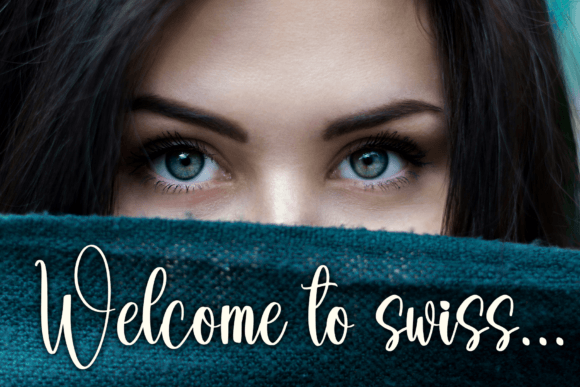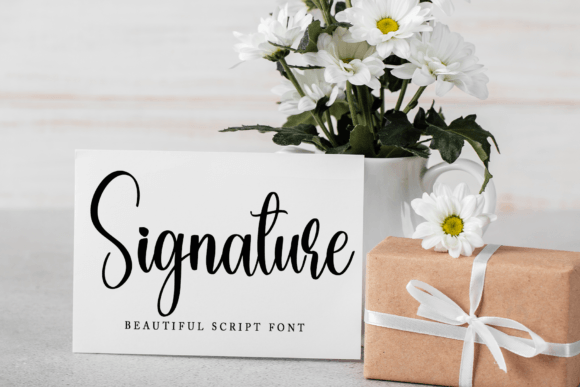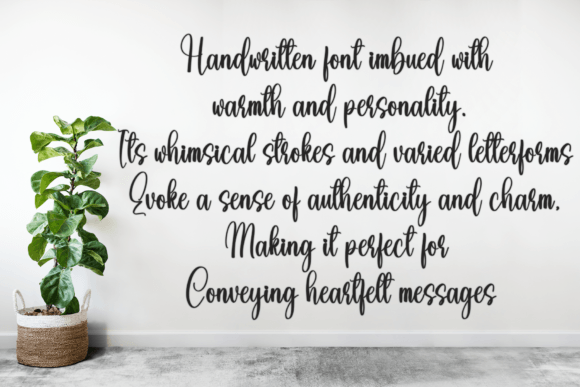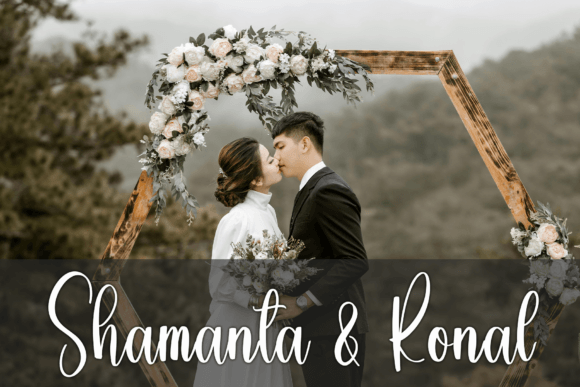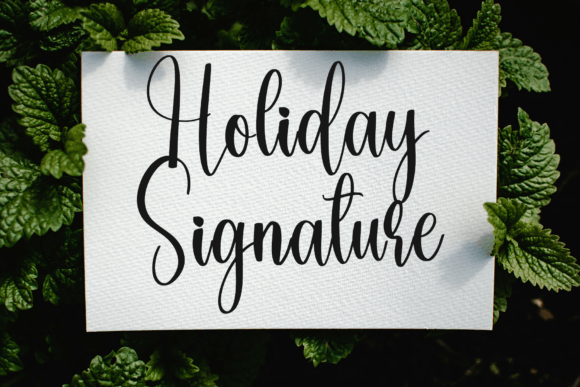
Introducing Birthday Font: The Perfect Handwritten Font for Joyful Celebrations
Are you looking for a font that can add a touch of warmth and personality to your designs? Look no further than the Birthday Font, a delightful handwritten font that is perfect for conveying heartfelt messages. With its whimsical strokes and varied letterforms, this font is sure to evoke a sense of authenticity and charm in any design.
The Characteristics of Birthday Font
Birthday Font is a carefully crafted handwritten font that is imbued with warmth and personality. Its unique characteristics make it perfect for a variety of design applications, including:
- Whimsical strokes: The font features playful and whimsical strokes that add a touch of fun and personality to any design.
- Varied letterforms: The font has varied letterforms that give it a sense of authenticity and charm.
- Handwritten feel: The font has a handwritten feel that makes it perfect for conveying heartfelt messages.
Uses for Birthday Font
Birthday Font is a versatile font that can be used for a variety of design applications, including:
- Invitations: Use Birthday Font to create beautiful and unique invitations for birthday parties, anniversaries, and other celebrations.
- Greeting cards: Add a touch of warmth and personality to your greeting cards with Birthday Font.
- Branding: Use Birthday Font to create a unique and memorable brand identity that stands out from the crowd.
- Signage: Use Birthday Font to create eye-catching signage for events, businesses, and organizations.
Why Choose Birthday Font?
There are many reasons why you should choose Birthday Font for your design needs. Here are just a few:
- Unique and memorable: Birthday Font is a unique and memorable font that will help your designs stand out from the crowd.
- Easy to read: Despite its whimsical nature, Birthday Font is easy to read and understand, making it perfect for a variety of design applications.
- Versatile: Birthday Font can be used for a variety of design applications, from invitations to branding.
- High-quality: Birthday Font is a high-quality font that is designed to deliver exceptional results.
Tips for Using Birthday Font
Here are a few tips for using Birthday Font in your designs:
- Use it sparingly: While Birthday Font is a beautiful font, it can be overwhelming if used too much. Use it sparingly to add a touch of warmth and personality to your designs.
- Pair it with other fonts: Birthday Font pairs well with other fonts, such as serif and sans-serif fonts. Experiment with different pairings to find the one that works best for your design.
- Experiment with colors: Birthday Font looks great in a variety of colors, from bright and bold to soft and pastel. Experiment with different colors to find the one that works best for your design.
In conclusion, Birthday Font is a delightful handwritten font that is perfect for conveying heartfelt messages. With its whimsical strokes and varied letterforms, this font is sure to evoke a sense of authenticity and charm in any design. Whether used for invitations, greeting cards, or branding, Birthday Font adds a touch of warmth to any design. So why not give it a try and see the difference it can make in your designs?